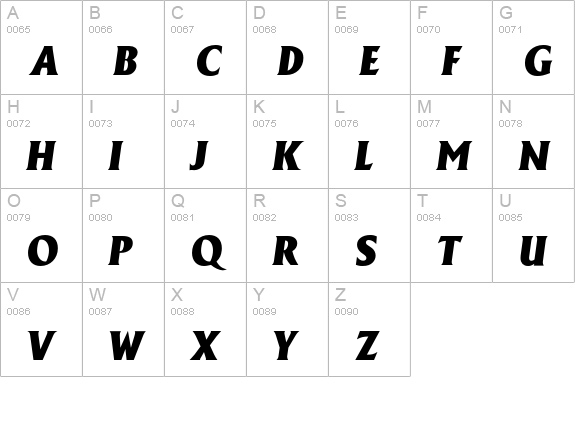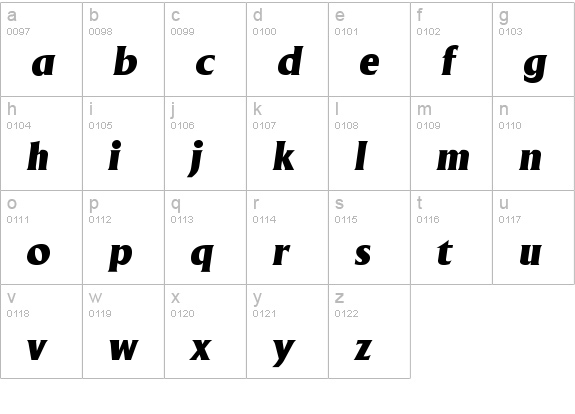
Adelon-ExtraBoldIta Font Details
Adelon-ExtraBoldIta is a striking and bold italic font that commands attention with its strong and dynamic presence. Its sleek and modern design exudes confidence and sophistication, making it perfect for headlines, posters, and branding projects that require a touch of bold elegance. What sets Adelon-ExtraBoldIta apart is not only its stunning visual appeal but also the fact that it is available for free download at FontsMarket.com. This means that you can easily access and use this premium font in your projects without any cost, making it a valuable addition to any designer's toolkit. Whether you're looking to make a bold statement or add a touch of flair to your designs, Adelon-ExtraBoldIta is the perfect choice. Download it for free today and elevate your projects with its unique and impactful style.